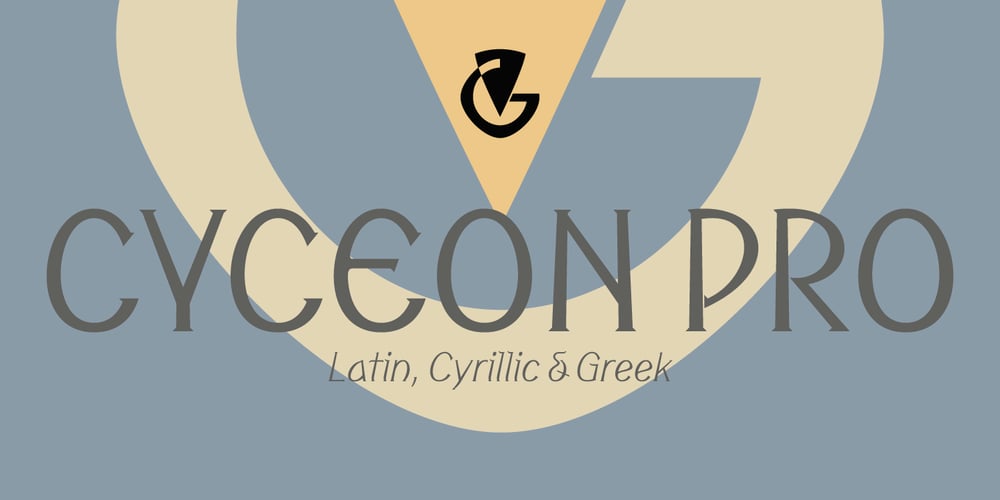
Cyceon Pro Font Family was designed by Vangelis Dim. Gardikiotis and published by DBSV. Cyceon Pro contains 24 styles and family package options. Fluted pillars… As for the name of “Cyceon”, it is a “juice-drink” that they made in ancient Greece…! In this font the straight lines are not vertical but inclined like something from the Doric columns!!! There are two versions of letters. In the first version, it is of a normal character, while in the second version I have mixed some capitals with lower case letters. I have given them the acronym Msc “miscellaneous”. I tried in this way to give another version of the small capitals and I think they show a different view from the purely small capitals… And in this family, the “Strap”/“Strap Msc”/“StrapIt”/ and “Strap MscIt” with “Solid”/“Solid Msc”/“SolidIt”/ and “Solid MscIt” engage in the same way like… “Layered font families” as the previous series. This series is composed and includes twenty-four fonts with 642-658 glyphs each, with true italics and supports Latin, Greek and Cyrillic.